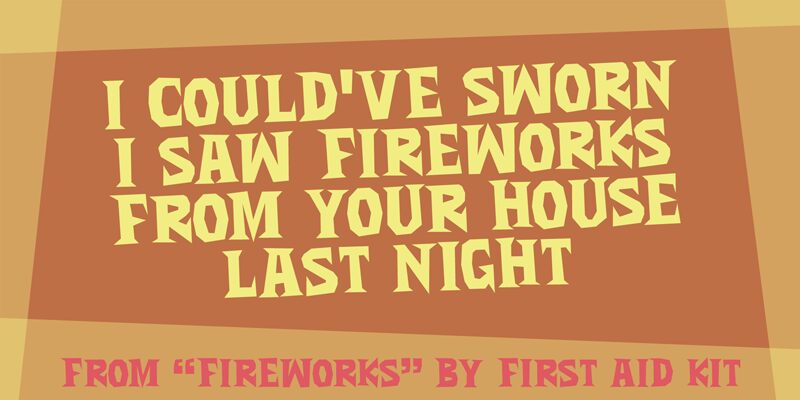
Zonaix DEMO
Zonaix font by Pizzadude is a bold, angular display typeface with a modern cartoon style. With its sharp edges, and dynamic appearance, Zonaix shows off a strong present and rigid structure. It’s simply highly striking and will enchant every reader.
The utilisation for such an outstanding free font can be found in branding projects (logos are a must!), posters, magazine covers or books titles. All other headlines in UX or UI design as well as website presentations are use cases to check out.